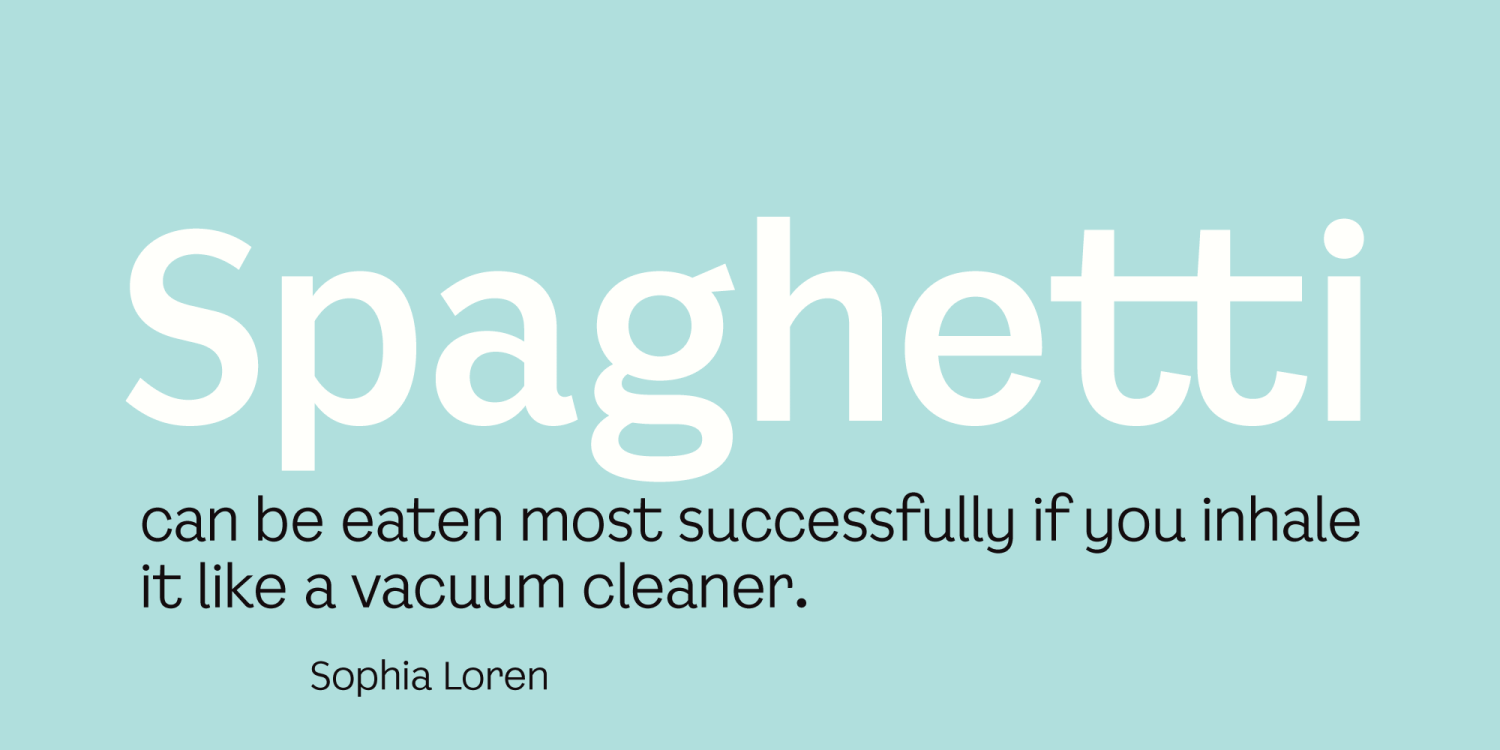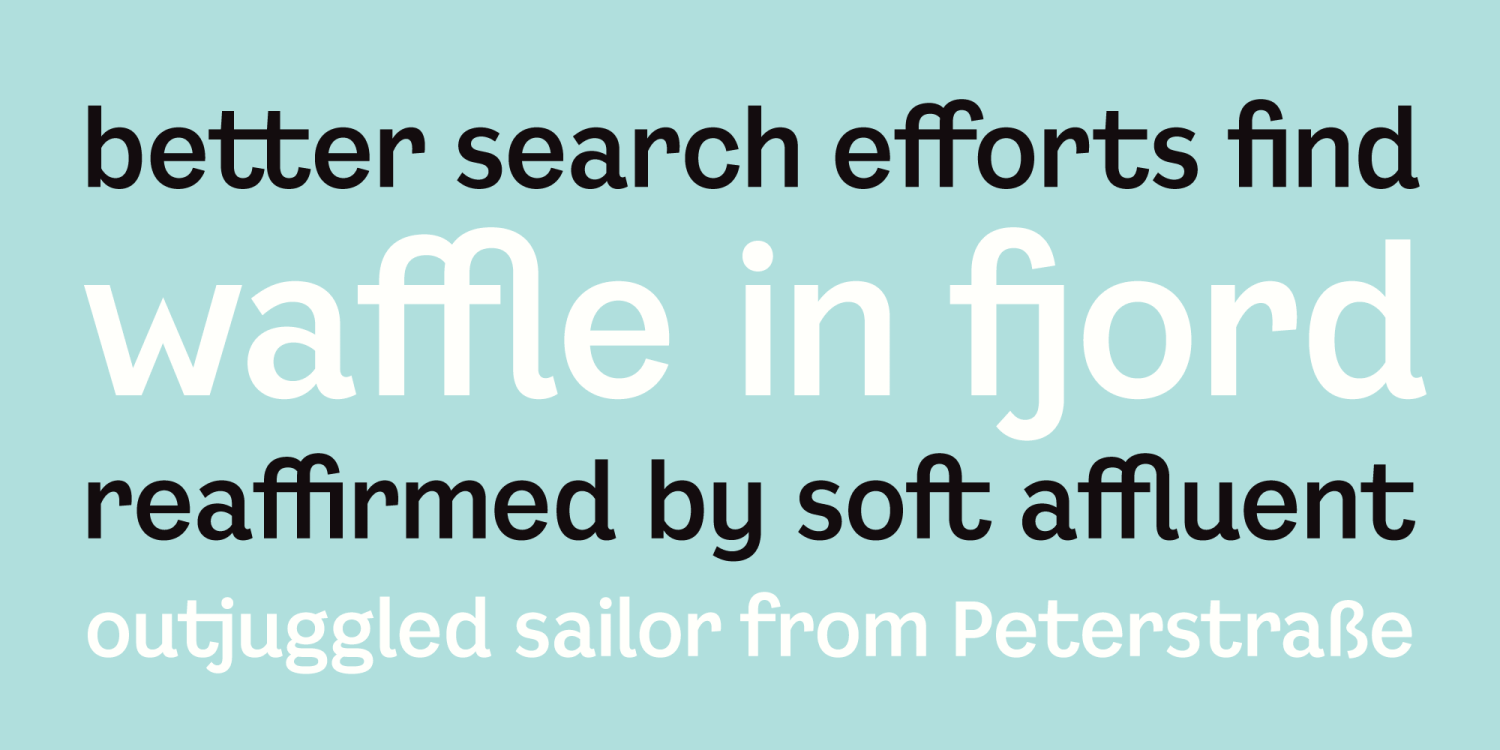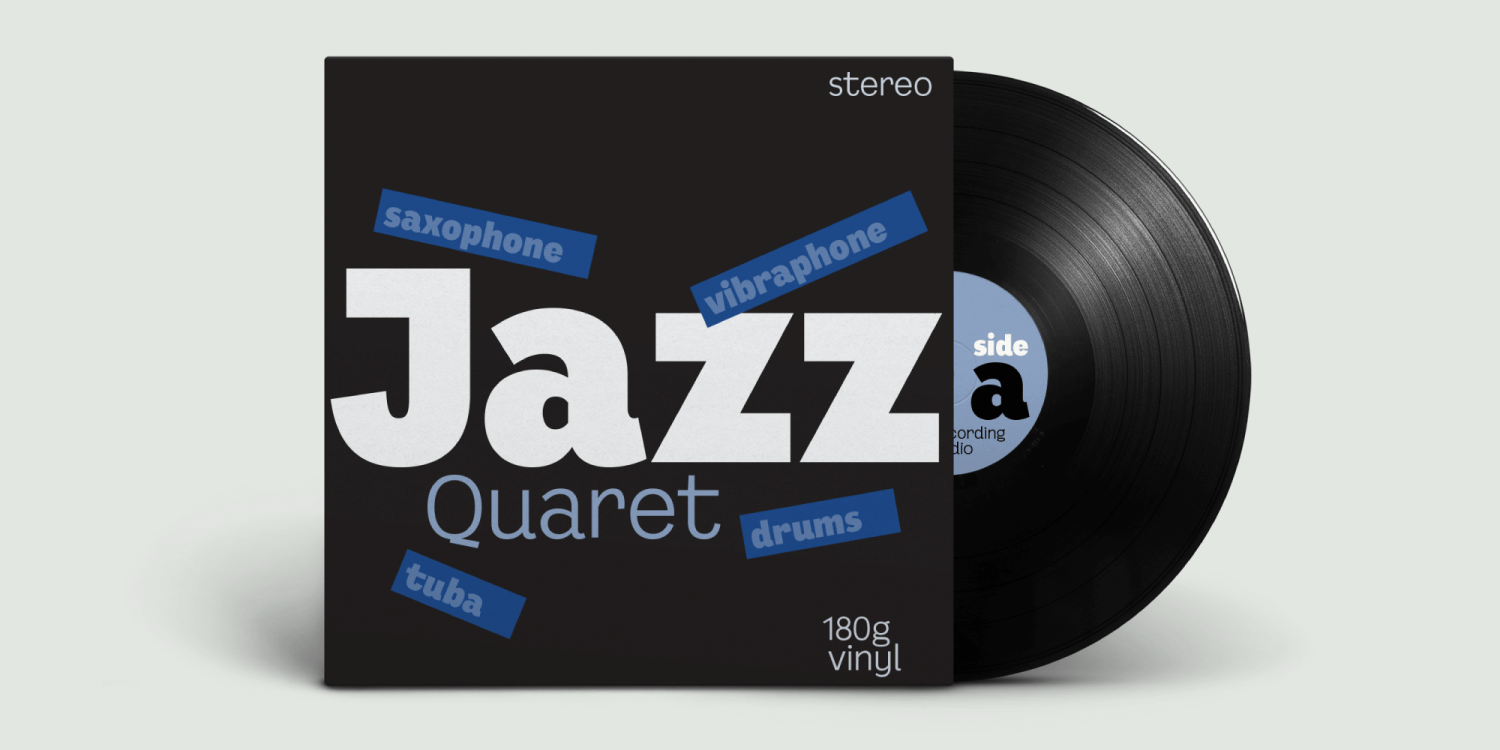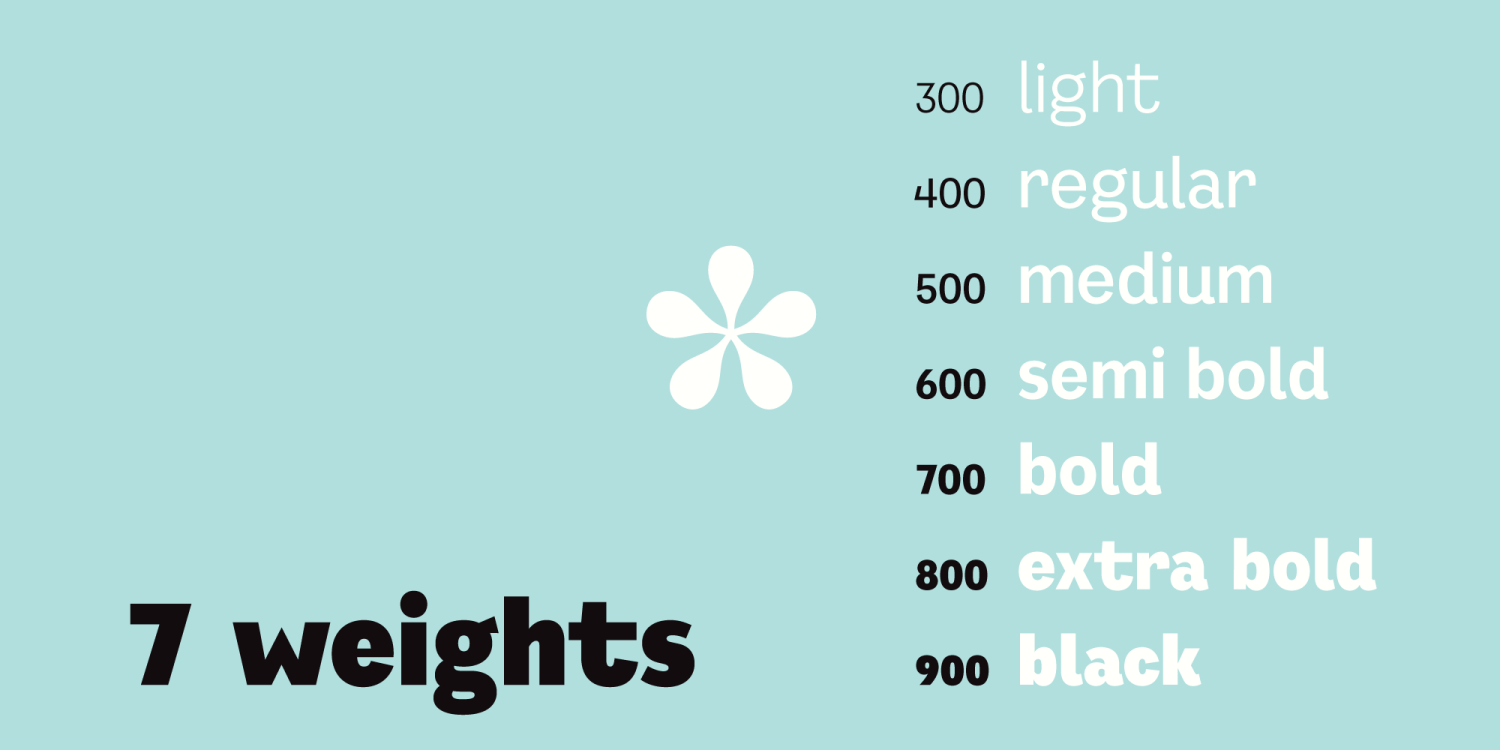
Mezzogiorno is a casual and friendly sans serif typeface. It is playful and approachable, yet restrained. The easy-going nature of Mezzogiorno adds just the right amount of warmth without overpowering text. It is suitable for any graphic design need.…